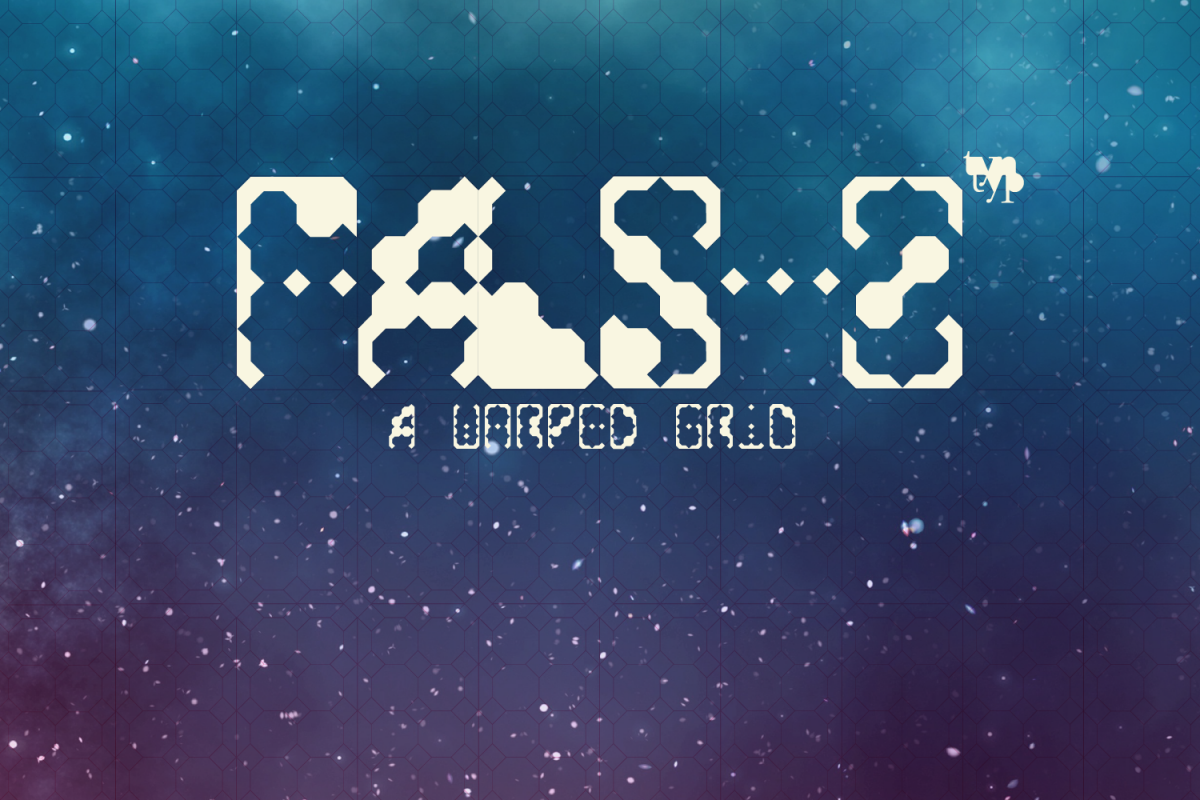
FALS8
FALS8 is the latest typeface from tyntyps grid series.
Taking its inspiration from classic digital representations of type and numbers, this font takes a modern approach to the classic style and is more than suitable for a variety of space/digital themed uses.
This typeface works well in both large and small sizes and comes packed with all the most useful characters including a few nice little extras....